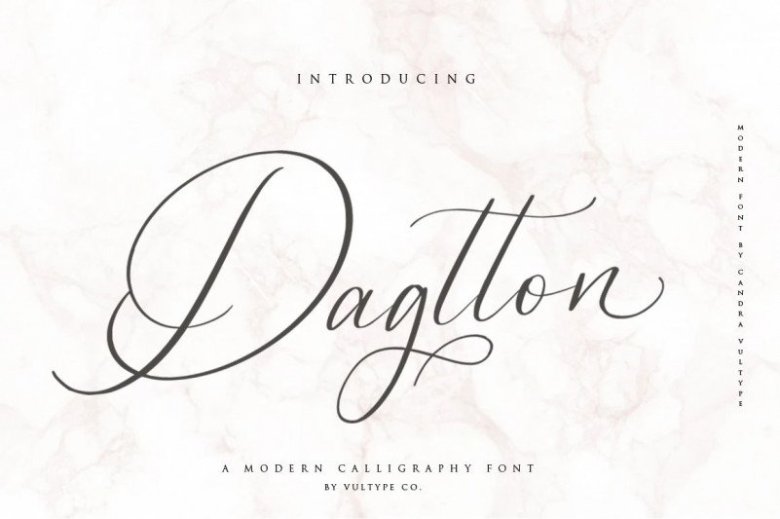
Dagtton Font
Dagtton Calligraphy Font is a minimalist calligraphy script with touch of beauty in every glyphs. It’s designed and shared by Vultype. This font is a flowing hand-drawn font, described by an elegant touch, perfect for your favorite projects. Fall in love with its incredibly distinct and timeless style and use it to create spectacular designs!